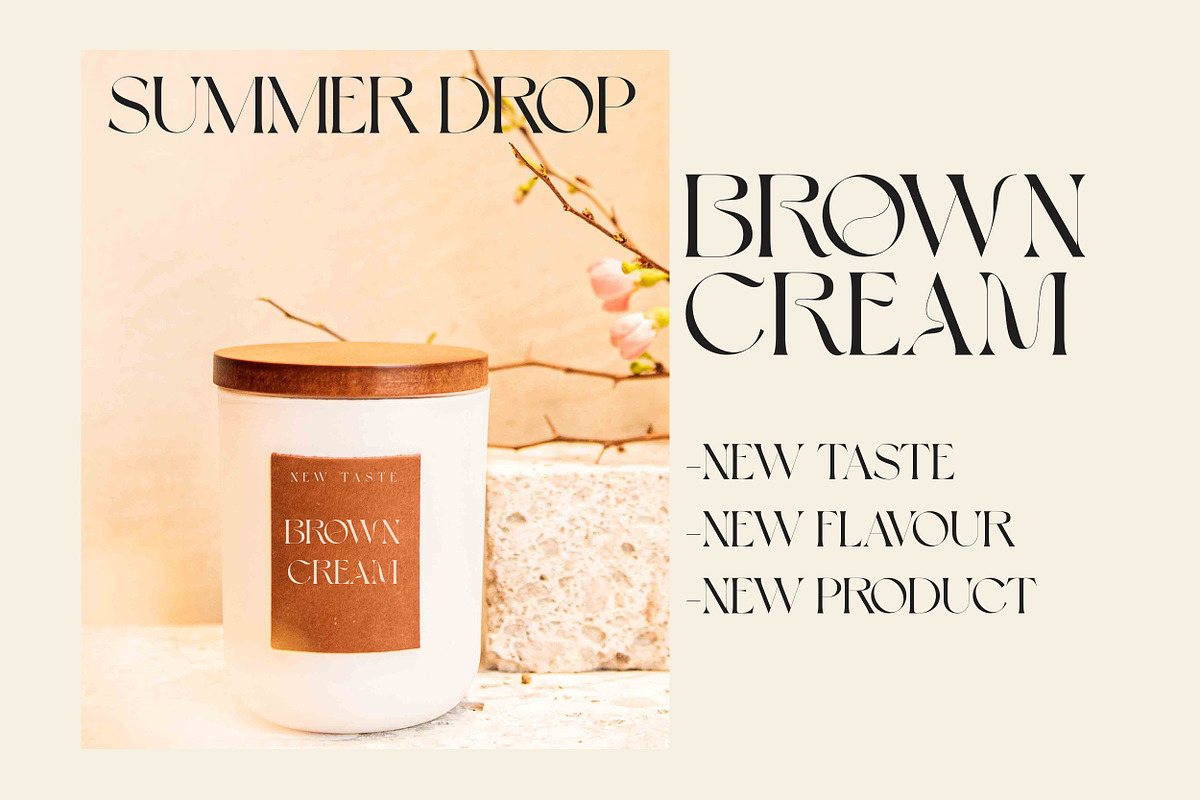
Carl Brown Font
Carl Brown is a serif font with a modern style. The font includes uppercase letters, numerals, a large range of punctuation. It is ideal for greeting card, packaging, brand identity, poster, or any purpose to make your design project look eye catching and trendy. Feel free to play with this typeface!